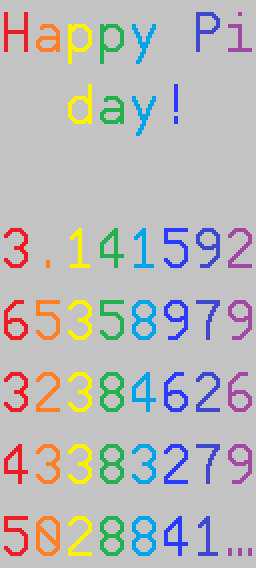
Please note before commenting: This is intended to be a last resort font. While it will support as many languages as possible, scripts that have special forms for letter combinations (like Devangari, Bengali, Gujarati, etc.) or scripts that change shape dependant on position within a word (Like Arabic scripts for example) may not render correctly with this font. If you desire correct rendering of complex scripts, you should probably use OpenType supported fonts that makes use of these features.
I know many of the blocks are still unfinished. But with enough time (and memory), this might support every character in Unicode…
Happy Pi day!
i believe ɠ should be a *script* g with a hook instead of a two story g
Should I make the CJK ideographs like they appear in Unifont?
Working on the remaining Cyrillic Blocks (At least those in Unicode 14).
Fun Fact: The Multiocular O was only used in a single 15th c. manuscript in the Old Church Slavonic phrase "серафими мн҄оꙮчитїй" (serafimi mnogoočitii, meaning "many-eyed seraphim").
When Unicode 5.1 introduced the letter that was used literally only once, it had 7 eyes (probably because the scam from Karsky in 1979 was not good), but the source had 10 eyes, so Unicode 15 will correct this, so when that comes out, I'll probably need to do the same too…
I meant to type "scan" and never noticed…
Adding the Lao Yamakkan (U+0ECE) before Unicode 15 is released cause why not.
Why does the lowercase G look weird from all the other letters?
@susi baka Unifont condenses the DŽ, LJ, and NJ digraphs as well…
Why is there a capital final sigma? There isn't supposed to be one!
The Æ and Œ are more considered ligatures, although some languages have them as letters, like Danish and French.
good pixel monospaced font 10/10
also i like your letter "g" design
i hate the g.
btw do you plan to add PUA?
i think unicode 16 added characters inbetween u+4xxxx and u+Dxxxx